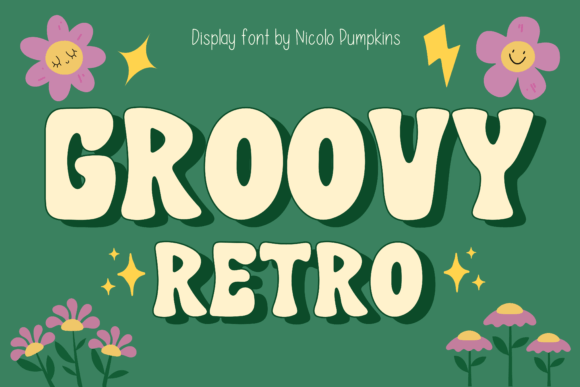
The Perfect Font for a Far-Out Design
You know that moment when you’re brainstorming ideas for a new project, and suddenly, a spark of creativity hits you? The words start flowing, and you envision a design that’s truly one-of-a-kind. For designers, this moment is the best feeling in the world – and it’s about to get even better with the Groovy Retro Font.
This groovy, retro display font is the perfect addition to any design project. Whether you’re creating T-shirts, tote bags, or wedding invitations, the Groovy Retro Font will make your ideas stand out and shine. Its cute, playful vibe is sure to captivate your audience and leave a lasting impression.
As a designer, you know how valuable it is to have the right tools at your disposal. The Groovy Retro Font is a game-changer, offering endless possibilities for creative expression and design innovation. So why settle for a generic font when you can have a font that’s truly groovy?
Groovy Retro Font Key Features
- Font Family: Groovy Retro Font is a unique, hand-drawn font family with a retro vibe.
- Size: The font family includes multiple weights, ranging from Thin to Extra Bold, with 10 different styles to choose from.
- Unique Characteristics: Groovy Retro Font features a distinctive, hand-crafted aesthetic with subtle imperfections, giving it a warm and inviting feel.
Groovy Retro Font Review
I recently had the chance to play around with the Groovy Retro Font, and I have to say it’s a unique addition to any design project. ✨
- The font’s nostalgic vibe is perfect for creating a retro or vintage-inspired look.
- The font’s weight and texture options allow for a good deal of customization.
- The Groovy Retro Font is highly legible, even at smaller font sizes.
However, there are some limitations to keep in mind: ⚠️
- The font may not be ideal for projects that require a more modern or sleek aesthetic.
- The font’s retro style may feel dated or overused if not used thoughtfully.
Overall, I think the Groovy Retro Font is a great choice for designers looking to add some personality to their projects. While it may not be the best fit for every design style, it’s definitely worth considering for the right project. With some thoughtful use, the Groovy Retro Font can add a fun and unique touch to any design.
The Groovy Retro Font is ideal for:
Designing retro-themed posters and flyers.
Creating vintage-style social media graphics.
Adding a nostalgic touch to your branding materials.
Designing retro-themed invitations and party decorations.
Alternatives to Groovy Retro Font
Pacifico is a beautiful, elegant script font that is perfect for designs that require a touch of sophistication. It’s great for titles, headings, and any other text where you want to add a sense of luxury. Unlike Groovy Retro Font, Pacifico is more refined and less playful, making it ideal for formal designs.
Great Vibes is a modern script font that’s perfect for designs that need a fun and playful touch. It’s great for titles, headings, and any other text where you want to add a sense of excitement. Compared to Groovy Retro Font, Great Vibes is more modern and less retro, making it ideal for designs that need a fresh and energetic feel.
Alex Brush is a elegant, handwritten font that’s perfect for designs that require a touch of sophistication. It’s great for titles, headings, and any other text where you want to add a sense of luxury. Unlike Groovy Retro Font, Alex Brush is more refined and less playful, making it ideal for formal designs.